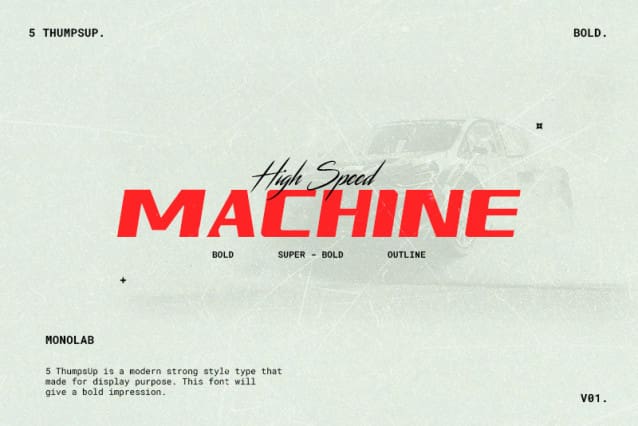
5 Thumbs Up Font
5 Thumbs Up Font, this bundle features strong, confident and powerful typefaces designed to work great with sports logos, club branding, apparel applications, labels and more.